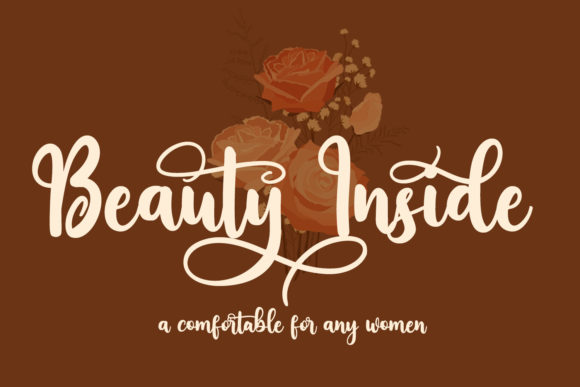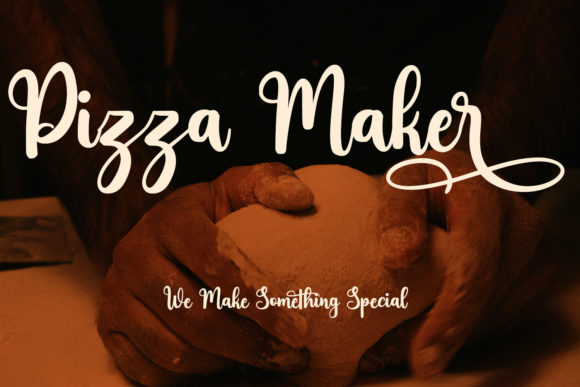
Vinylatte Font
db-ku.com - Script & Handwritten -- Vinylatte is a gorgeous and paint brushed script font. It has a classy, elegant and modern look that can be used for logos, branding, invitations, stationery, wedding designs, social media posts, and much more! This font is PUA encoded which means you can access all of the amazing glyphs and ligatures with ease!